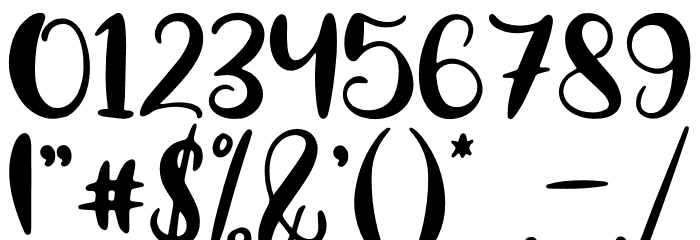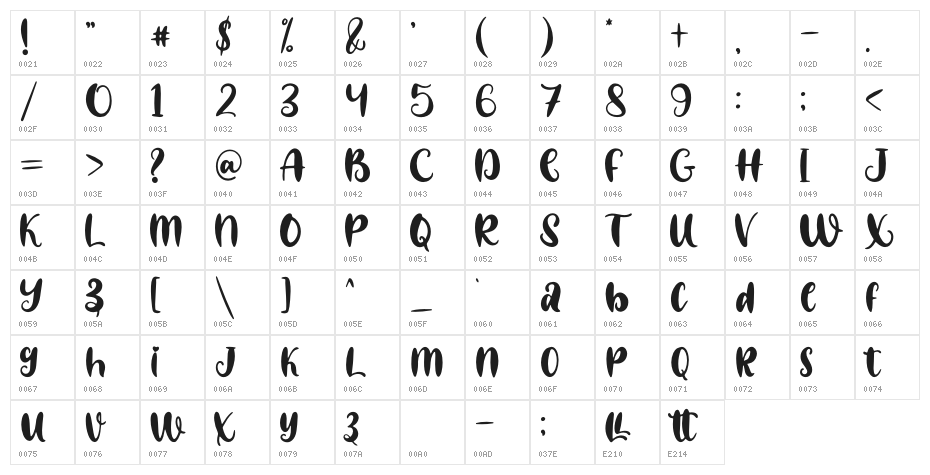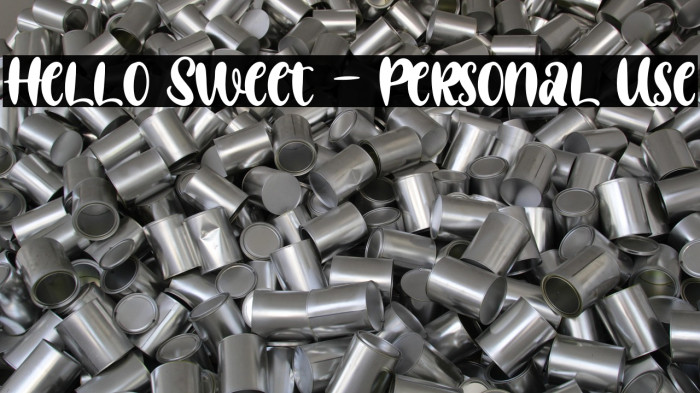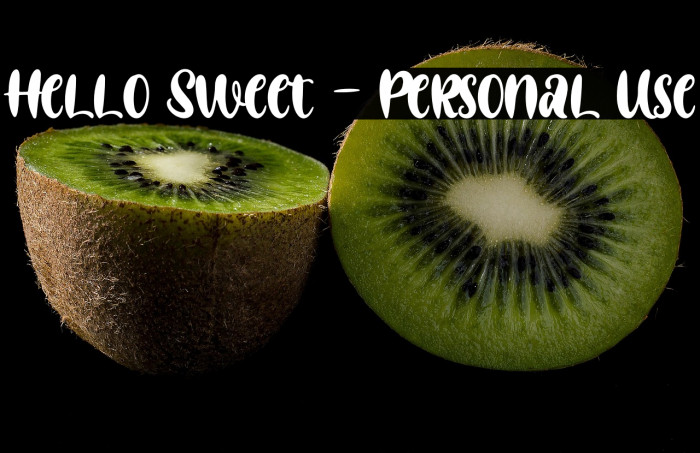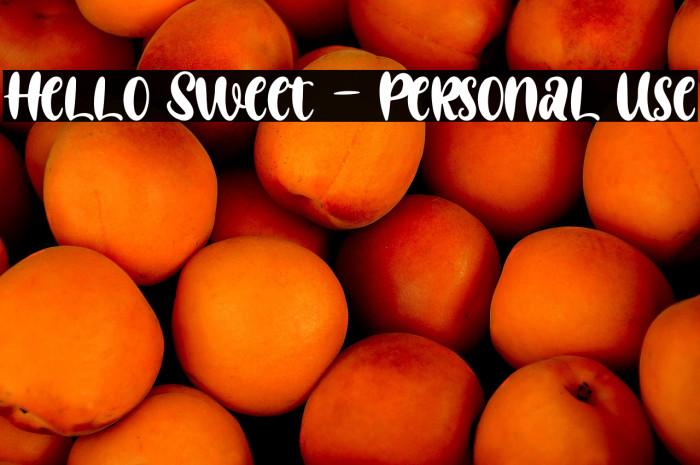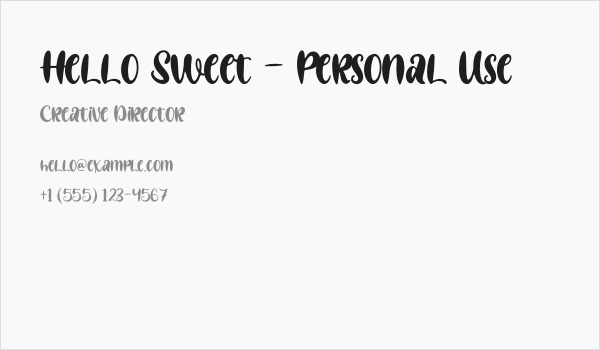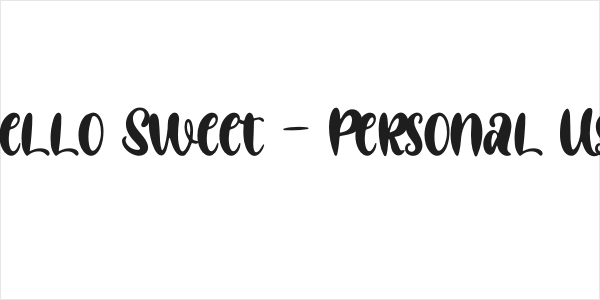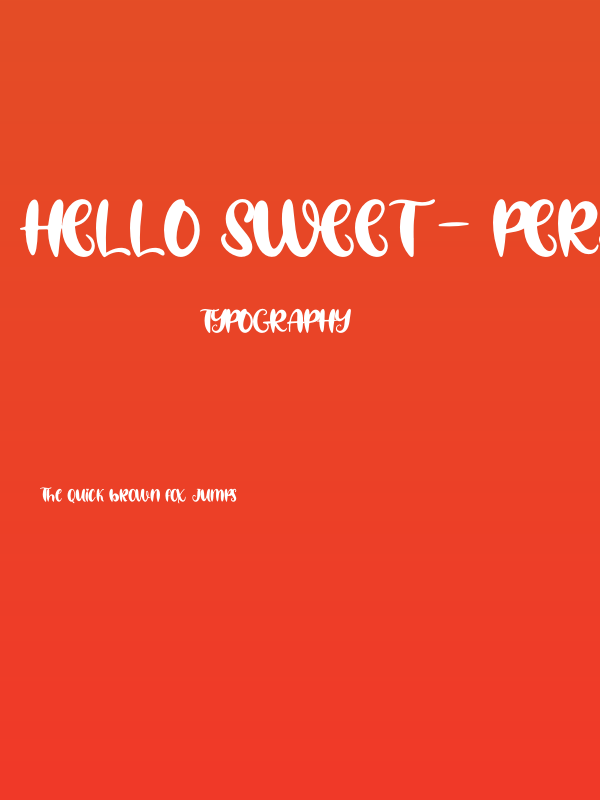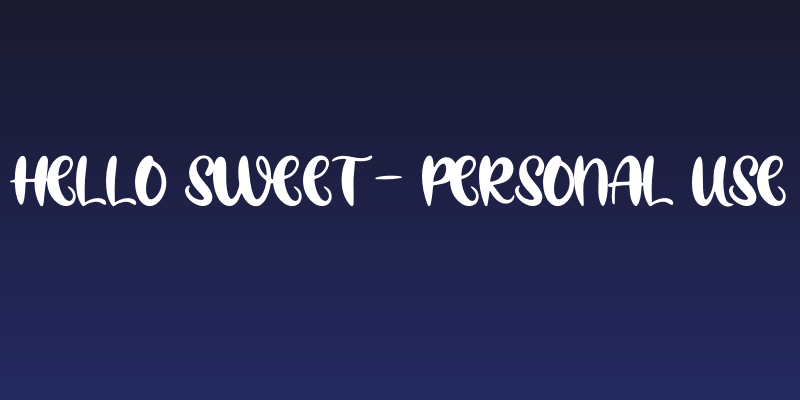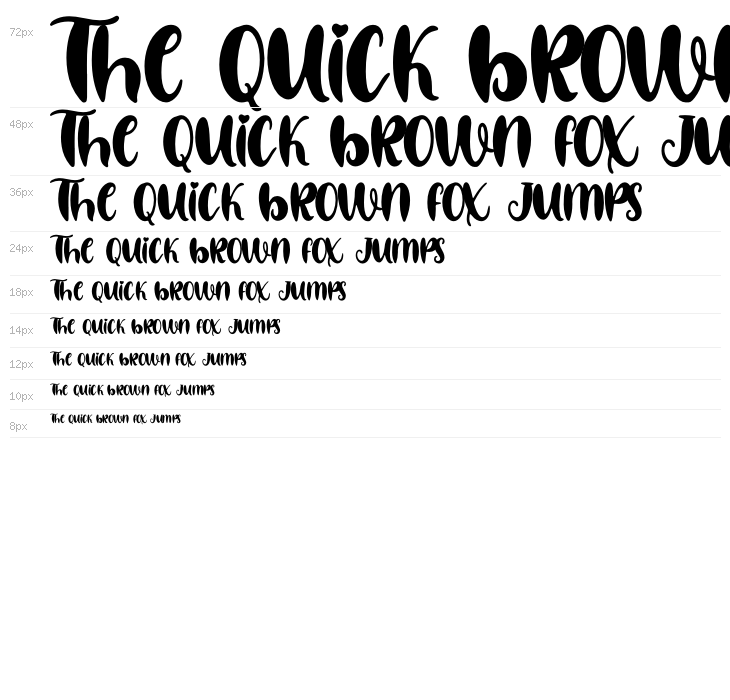
Hello Sweet - Personal Use Font
Hello Sweet - Personal Use Description
This font features a playful and whimsical script style, characterized by its bold and flowing letterforms. The uppercase and lowercase letters exhibit a consistent, rounded shape with a smooth, brush-like appearance. The numbers and special characters maintain the same lively aesthetic, making them cohesive with the alphabet. The font's design is highly decorative, with a strong emphasis on curves and loops, giving it a hand-drawn feel. Its bold weight and medium contrast in stroke thickness enhance its visibility and impact, making it suitable for eye-catching designs.
| Proposed Projects | Ideal for greeting cards, invitations, posters, and branding projects that require a fun and engaging look. |